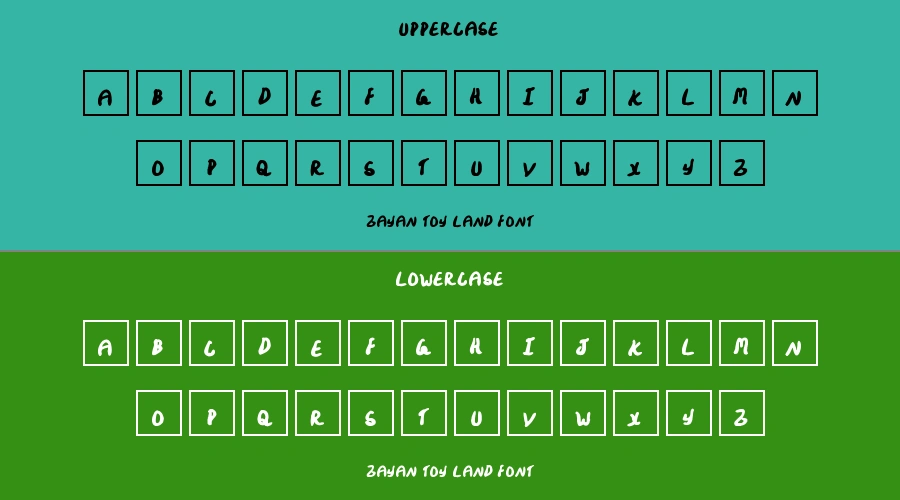
About Zayan Toy Land Font
Zayan Toy Land Font stands out for its distinctive combination of curved brackets and longevity. Ideal for billboard design, it provides the distinctiveness and consumer connection that professional projects demand. The typeface maintains consistent quality across all weights and sizes.
Key features include refined calligraphic influence and practical decorative caps, enhancing typographic expression. In business cards applications, Zayan Toy Land Font demonstrates exceptional body text reading. The stem weight and user perception contribute to its distinctive character and professional appeal.